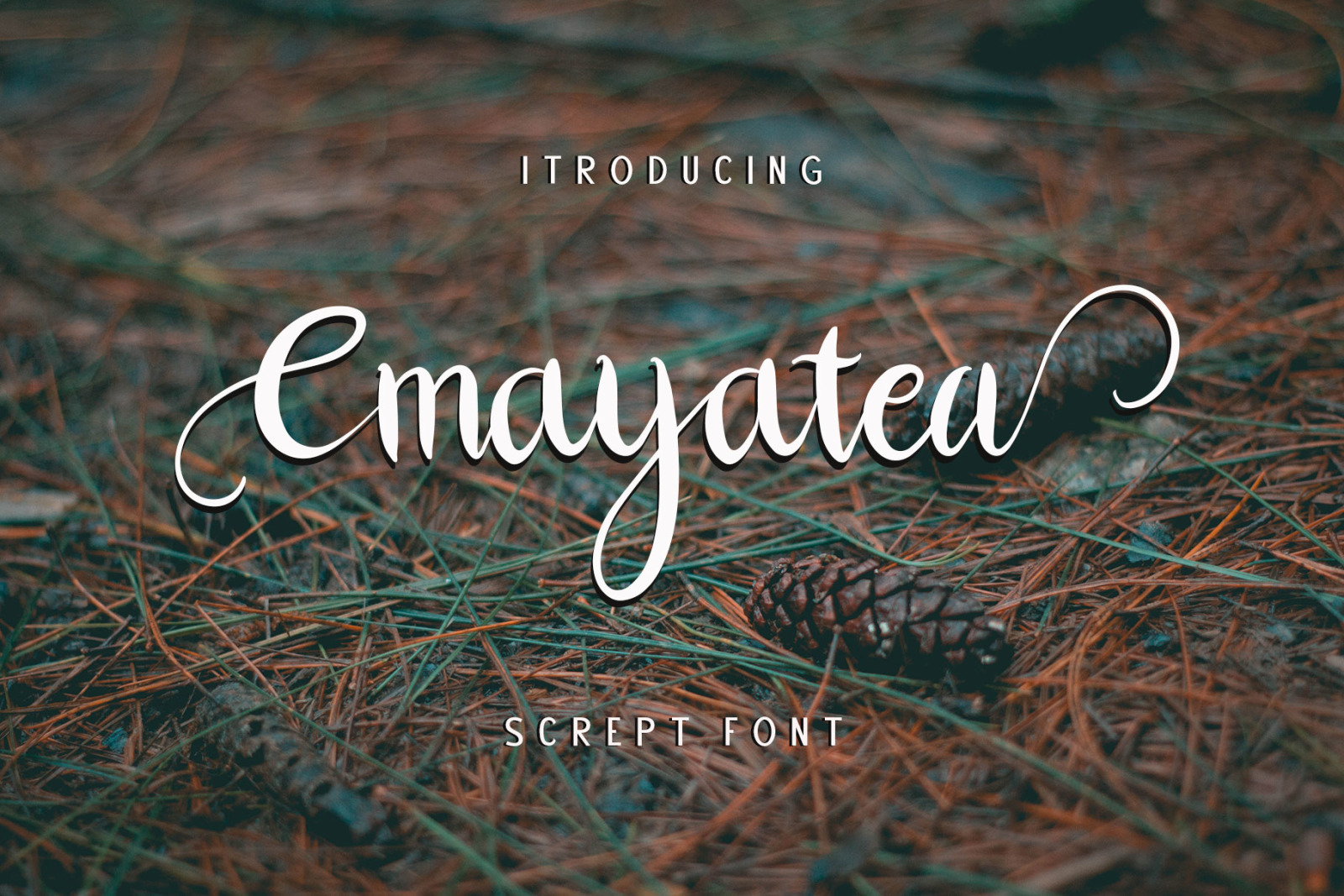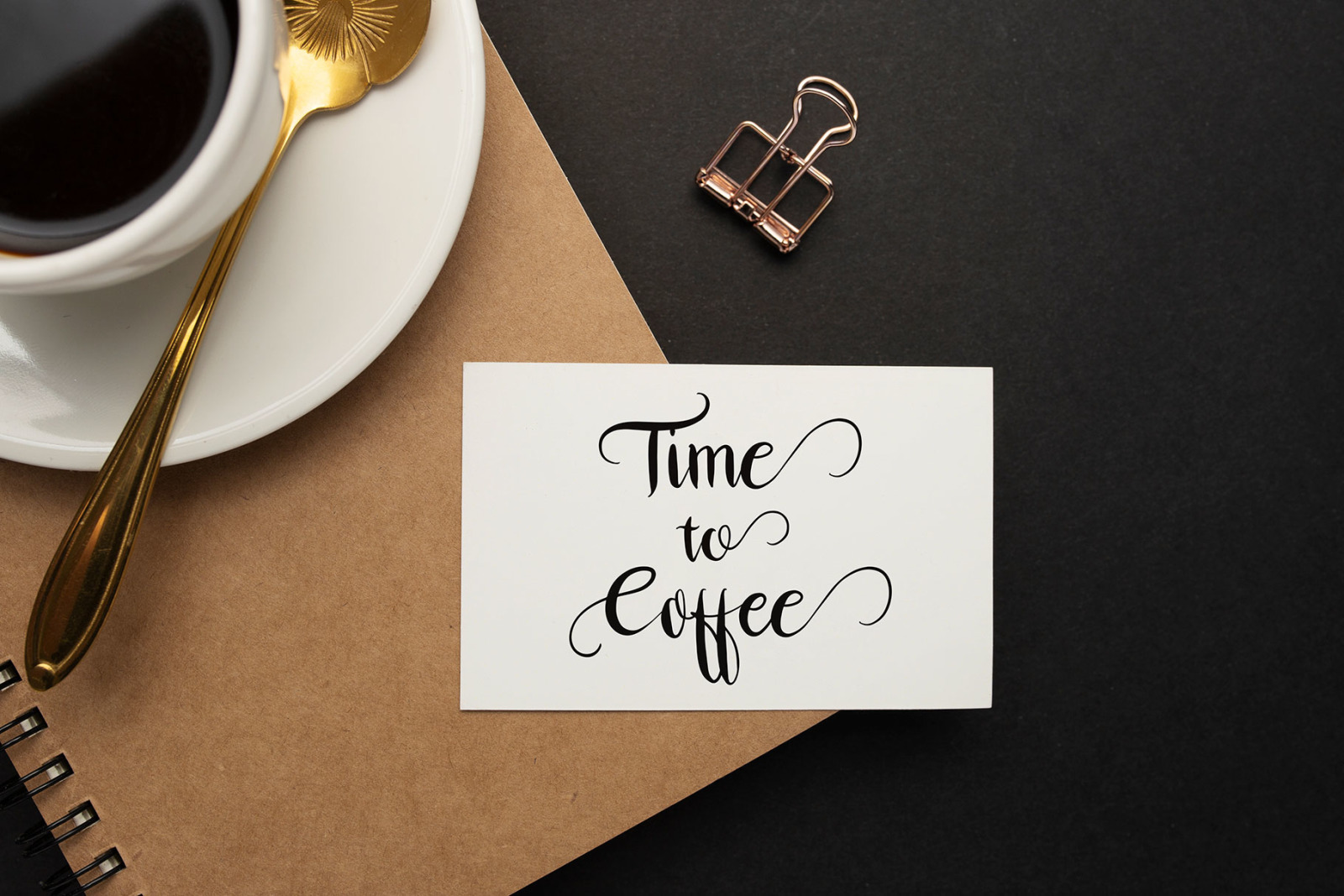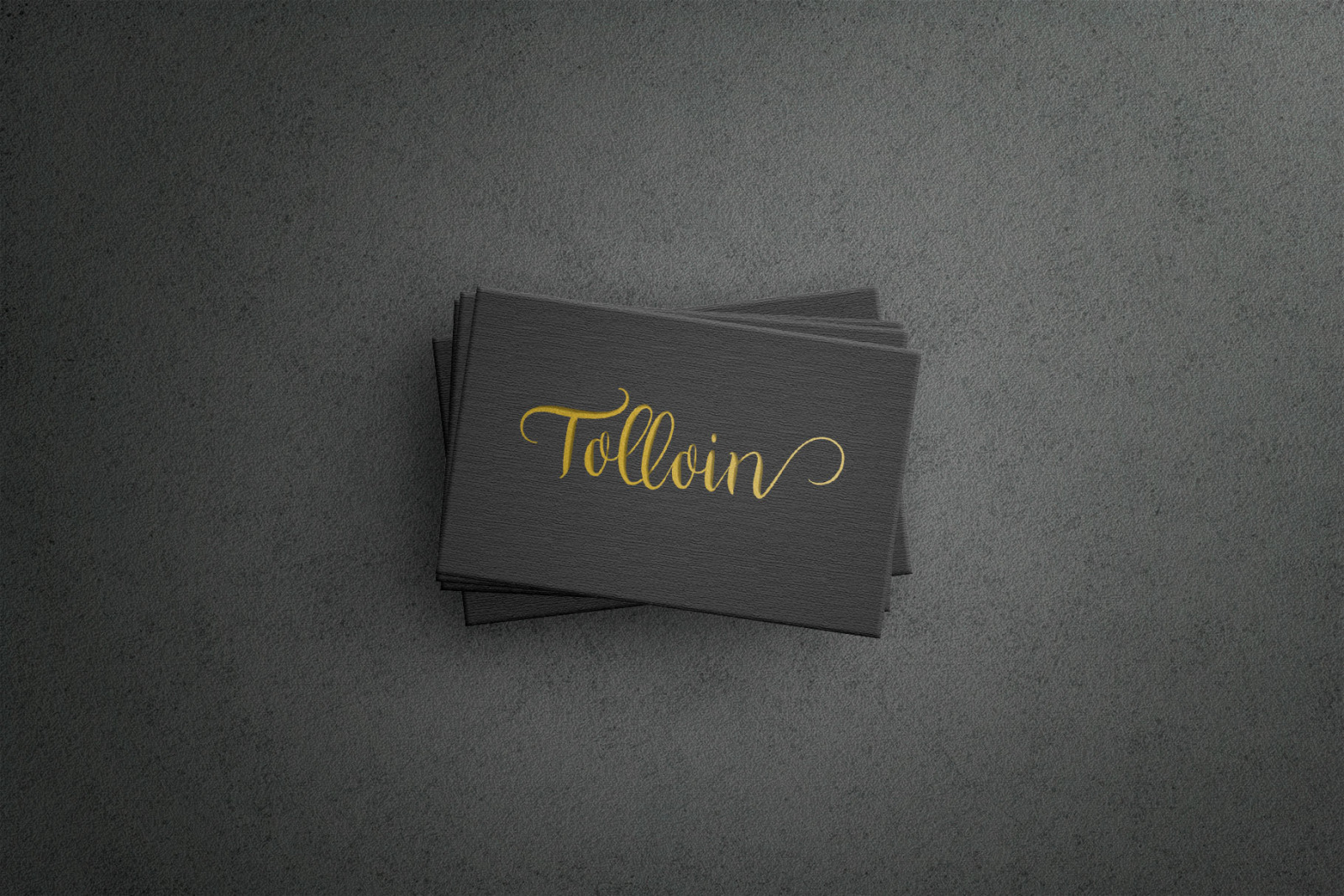
Cmayatea Typeface
Cmayatea is a Handwritten Script Font that carries the concept of Tropical and the beauty of the font from each letter, Cmayatea Font is perfect for printed quotes, wedding invitation cards, social media headlines, product packaging, and more!
Stylistic Alternates